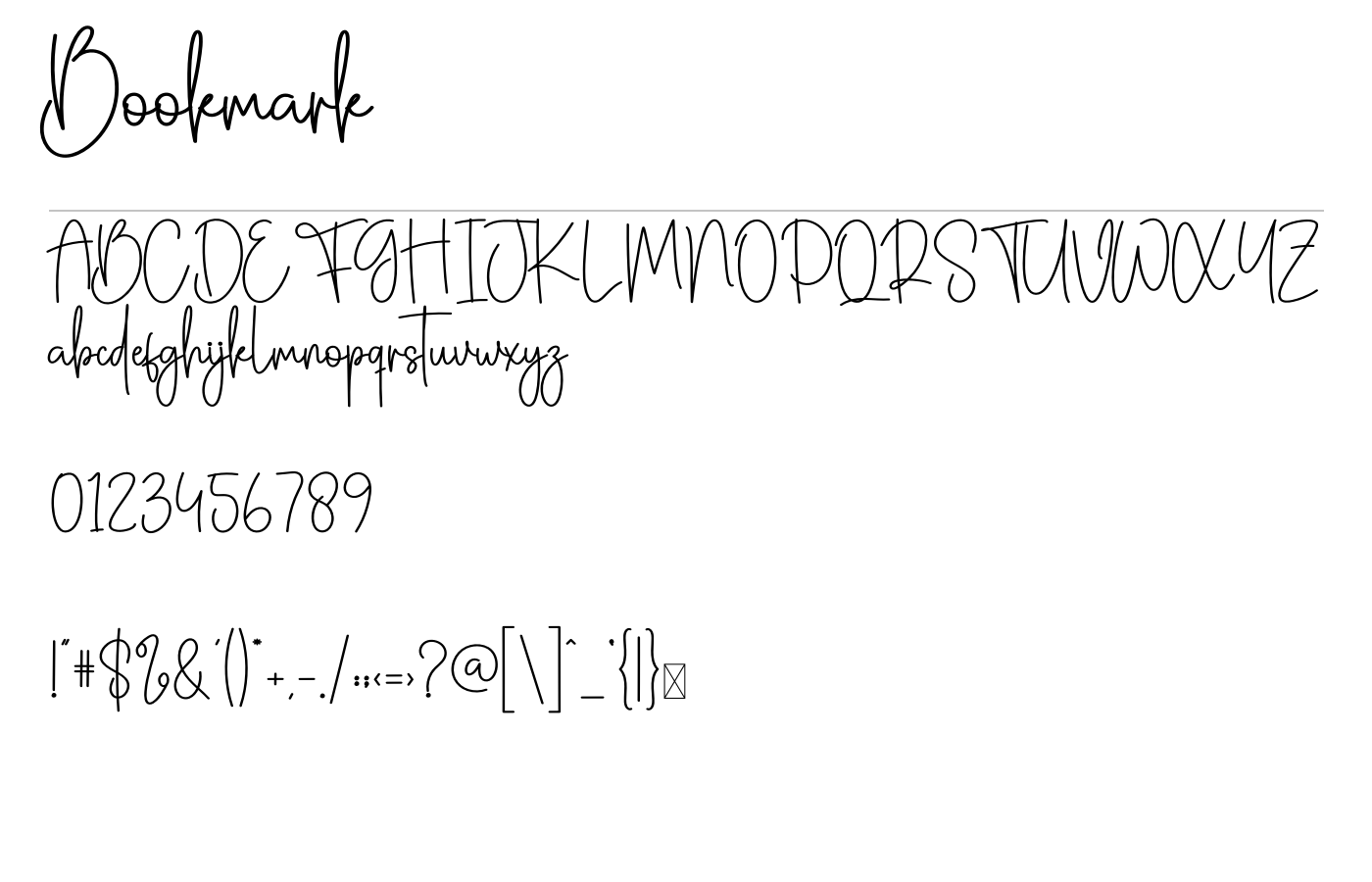
Bookmark Font is a delicate, hand-drawn script with tall, slender letterforms and a casual, whimsical feel. Its fine, irregular strokes and playful curves make it perfect for creative projects that need a personal, handwritten touch, such as invitations, branding, and social media graphics. This font works best in large sizes where its charming details can shine and add a friendly, approachable vibe.
Bookmark Font